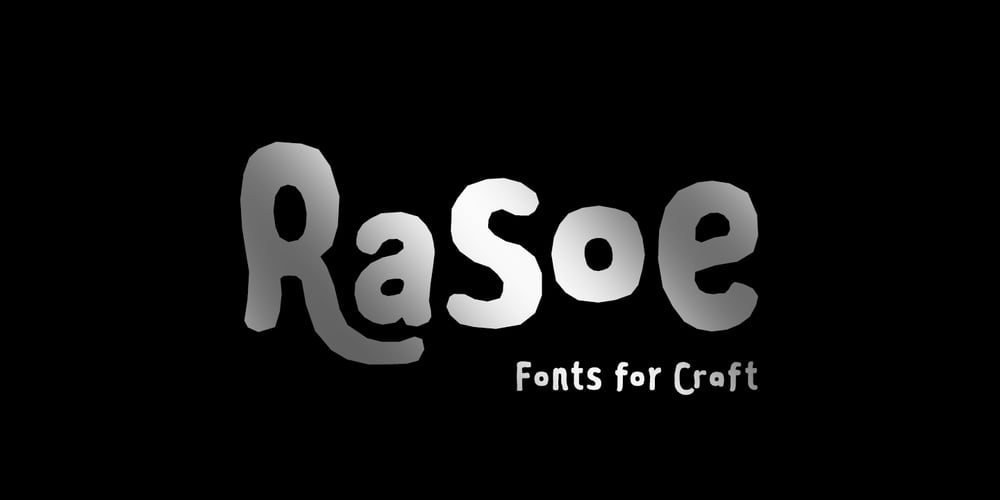
Along Sans Rasoe Font Family was designed by Ryul Davidson and published by Brenners Template. Along Sans Rasoe contains 18 styles and family package options. Along Sans Rasoe is a pretty unique font family.It only tried to connect with lines, and it didn’t use curves at all.And the equalization of stems was arranged irregularly.Various attempts have been applied to the glyphs to showcase the designer’s feeling more sensibly. 9 Weights, 18 Styles Discretionary ligatures (Ac, Ad, Ae, Am, At, Ca, Ce, Ch, Co, Cr, Ra, Re, Ro, cc, ee, ll, mm, nn, oo, pp, rr, ss) Stylistic Sets Circled Glyphs. Multilingual support And various OpenType Features.